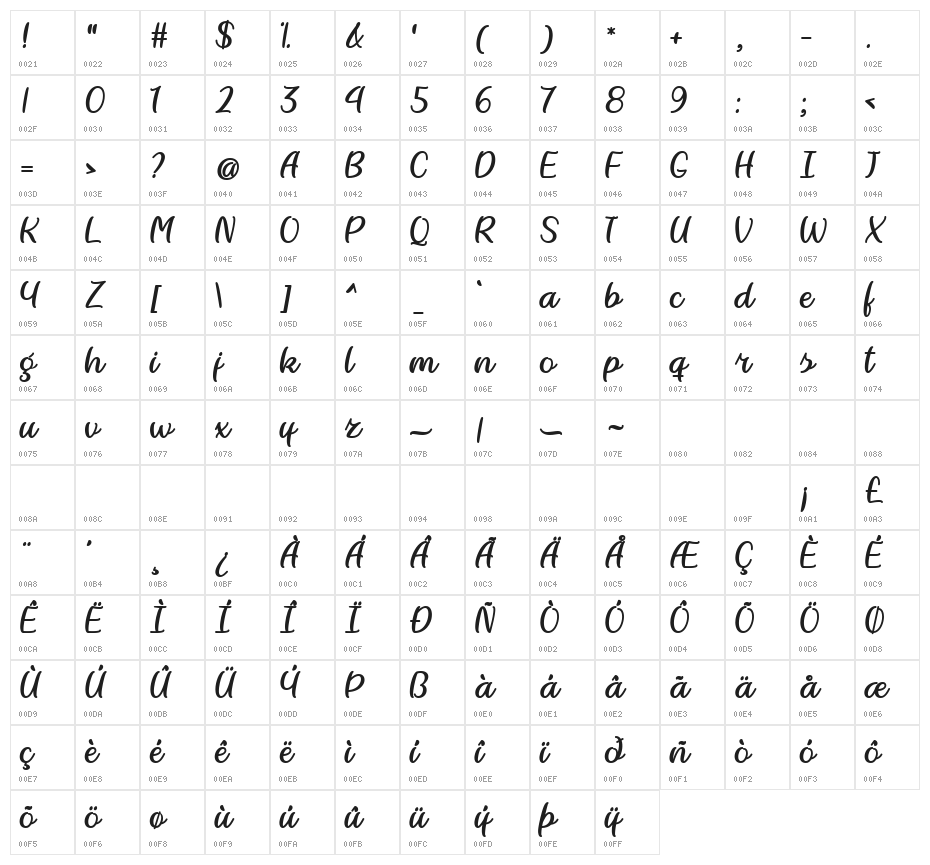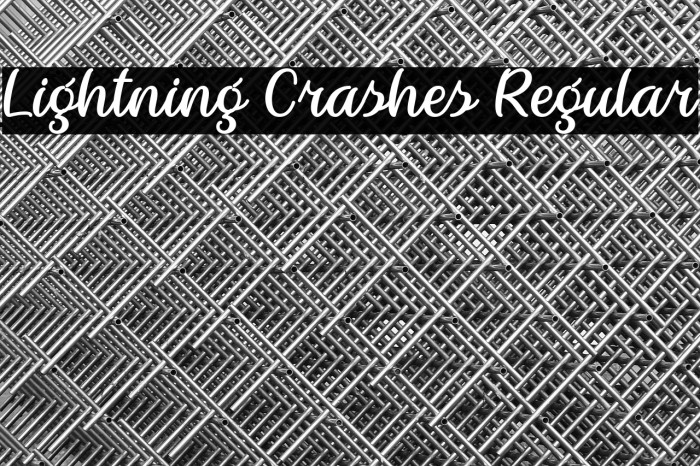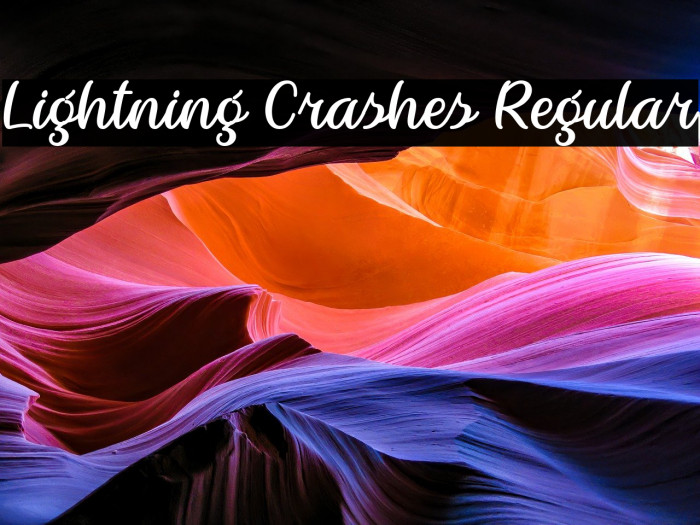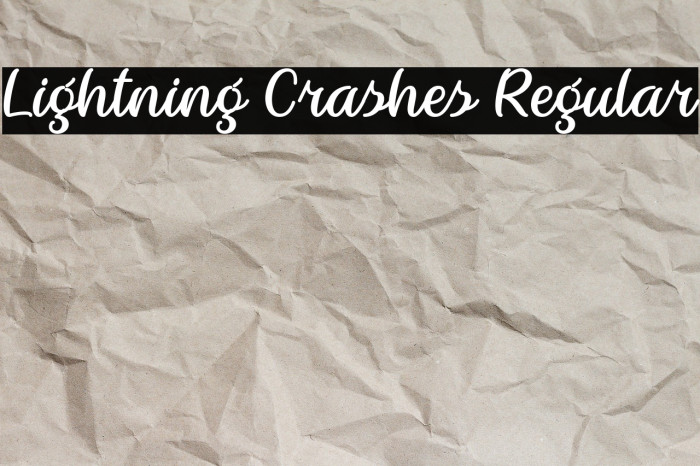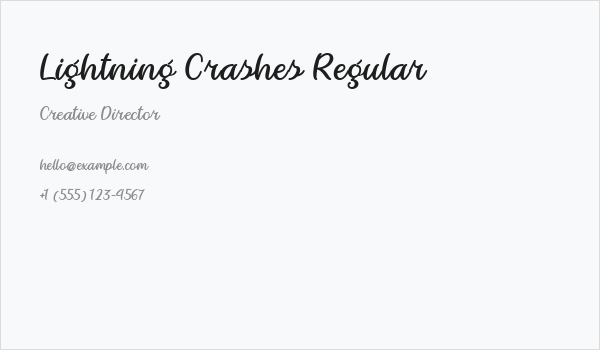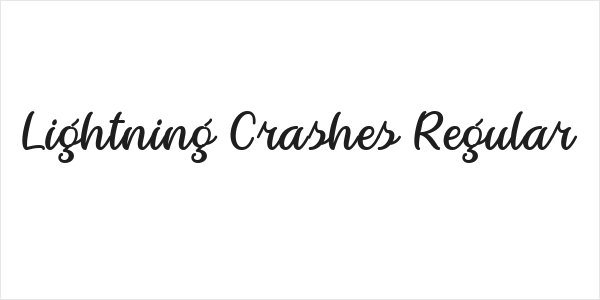
Lightning Crashes Regular Font
Lightning Crashes Regular Description
This font features a dynamic and flowing script style, characterized by its smooth, cursive letterforms that convey a sense of elegance and fluidity. The uppercase letters are bold and slightly slanted, while the lowercase letters maintain a consistent rhythm with gentle curves and loops. The numerals are distinct and easy to read, complementing the overall aesthetic. Special characters are integrated seamlessly, maintaining the cohesive look of the font. This typeface is ideal for projects that require a personal touch or a sense of sophistication.
| Overall Style | Elegant, Decorative |